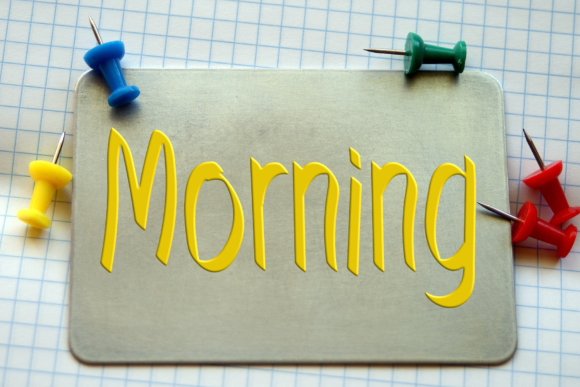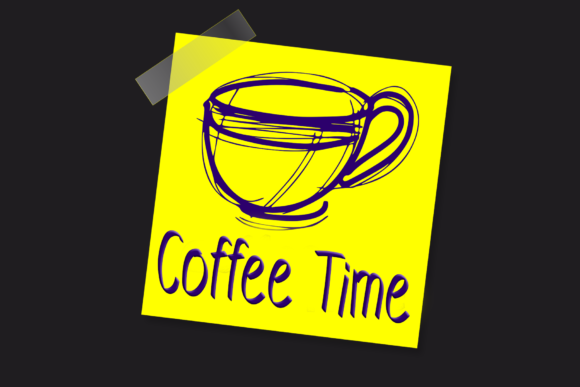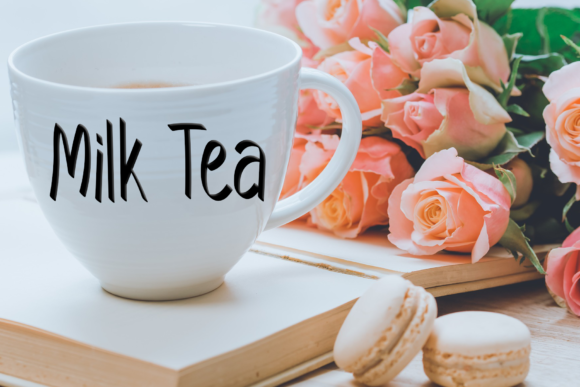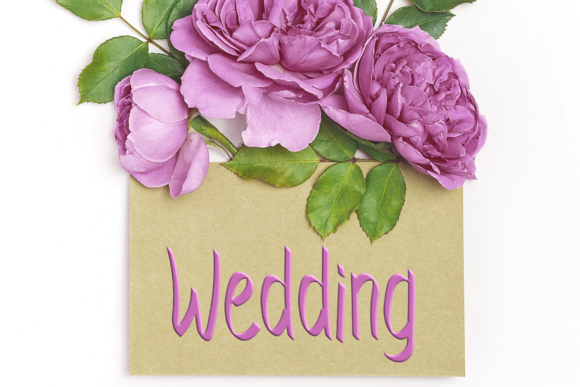
Flat White Font
About Flat White Font
Flat White is a font that exudes height and smoothness in its elegant handwritten style. With its tall and sleek appearance, this font becomes a standout choice that looks outstanding in any context, whether used on busy backgrounds or as a standalone headline.
The smooth handwritten style of Flat White brings a sense of refinement and grace to your designs. Each letter carries the fluid and polished touch of handwriting, making your work stand out with a touch of sophistication and elegance.
With Flat White as your creative tool, you have the flexibility to use it in various design contexts. Whether you’re working on posters, social media graphics, branding materials, or any other creative project, Flat White adapts effortlessly to bring a sense of elegance and impact to your work.
Embrace the tall and smooth nature of Flat White and witness how it enhances your designs. Its sleek and polished style creates a captivating visual experience, making your designs truly impressive and eye-catching.
Discover the joy of creating with Flat White as your trusted companion. Let its elegance and smoothness be the key to unlocking your creativity and infusing your work with a touch of refinement and allure.
Whether you’re designing for personal projects or professional endeavors, Flat White is the font that adds that extra touch of flair and sophistication to your creations. Embrace the versatility of Flat White and witness how it enhances the appeal and impact of your designs, making them truly special and unforgettable.
Let Flat White be the font that sparks your inspiration and brings a sense of elegance and beauty to your designs. Experience the magic of Flat White and witness how it elevates your creative projects, making them truly outstanding and remarkable.